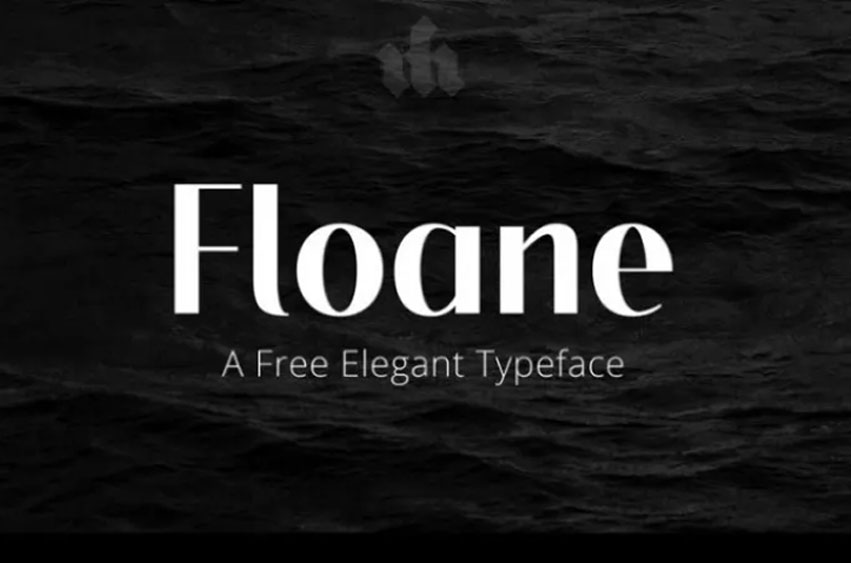
Floane Font is a modern all-caps display typeface with a character of its own. This typeface is the best for headers, huge text, logos and logotypes, and display usage.
Besides, it can be used for making superb logos, promotional materials, and marketing graphics that will really catch the eye of your visitors.